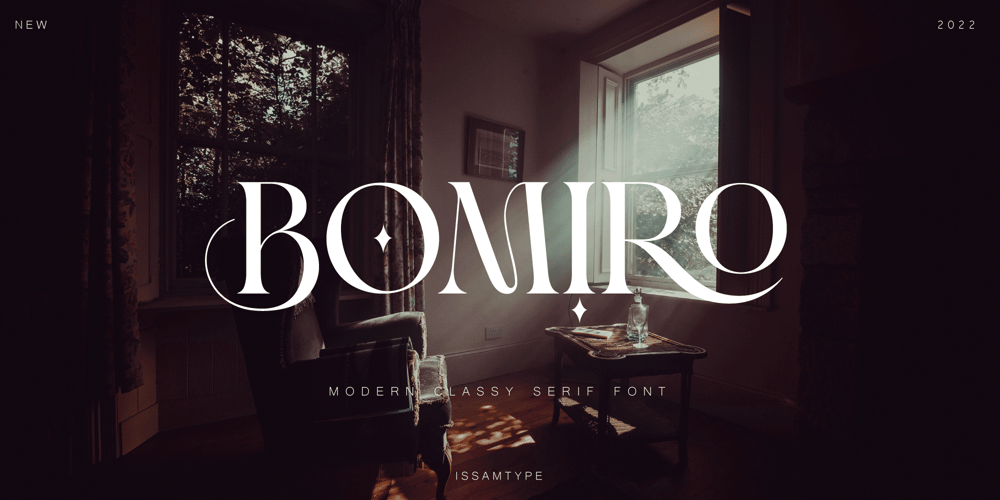
Bomiro Font Family was designed by Issam Boufelja and published by Issam Type. Bomiro contains 4 styles and family package options. Bomiro is a modern classy ligature serif typeface comes with joining ligatures that give it a fancy and unique style. This awesome font is perfect for branding, logos, invitation, watermark and so much more.Bomiro typeface comes with regular, italic, Thin and Thin Italic font styles. Uppercase & lowercase letters, numbers, punctuation, ligatures, alternates and multilingual support. If you have any questions, please feel free to get in touch.Thank you